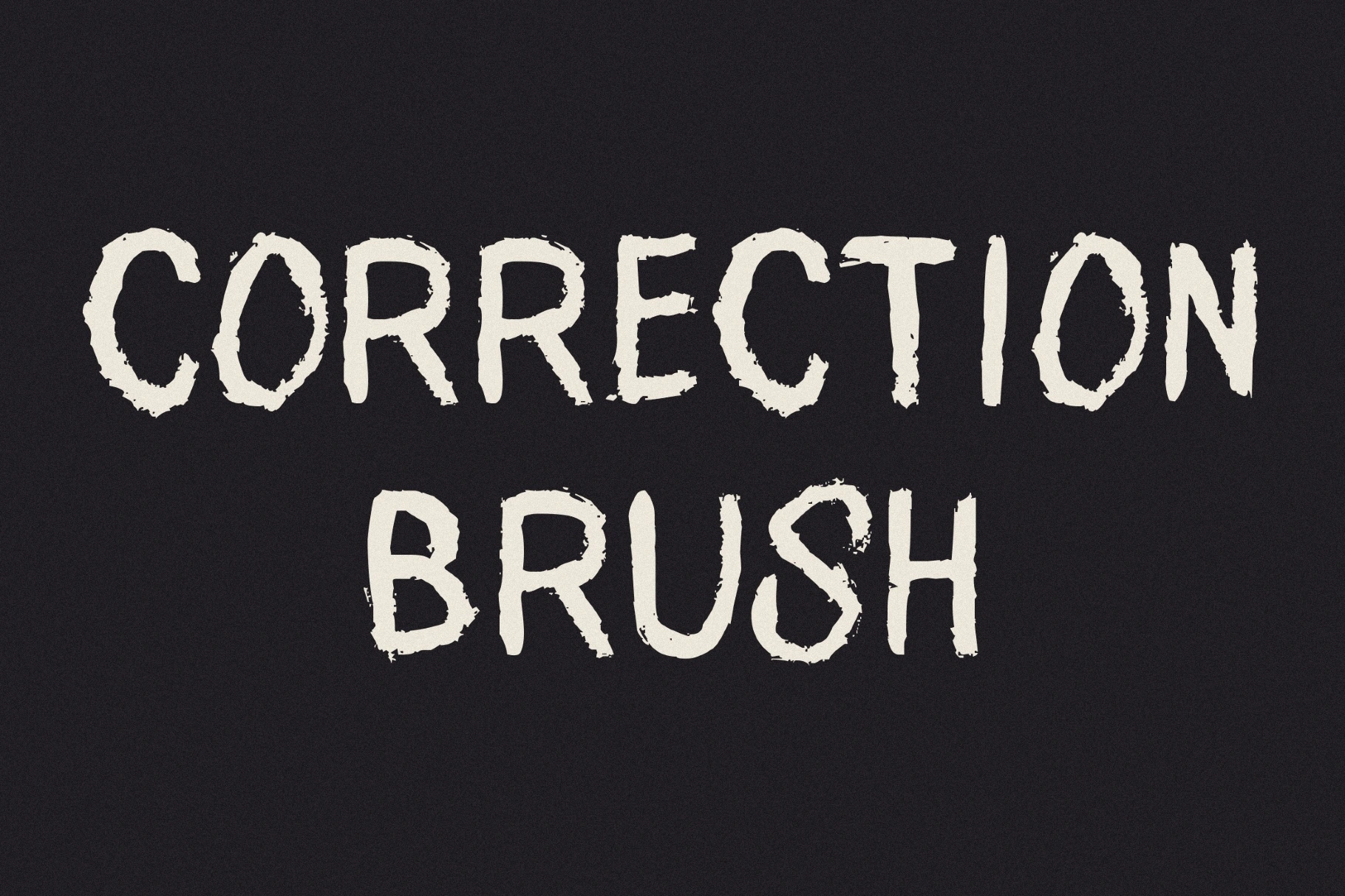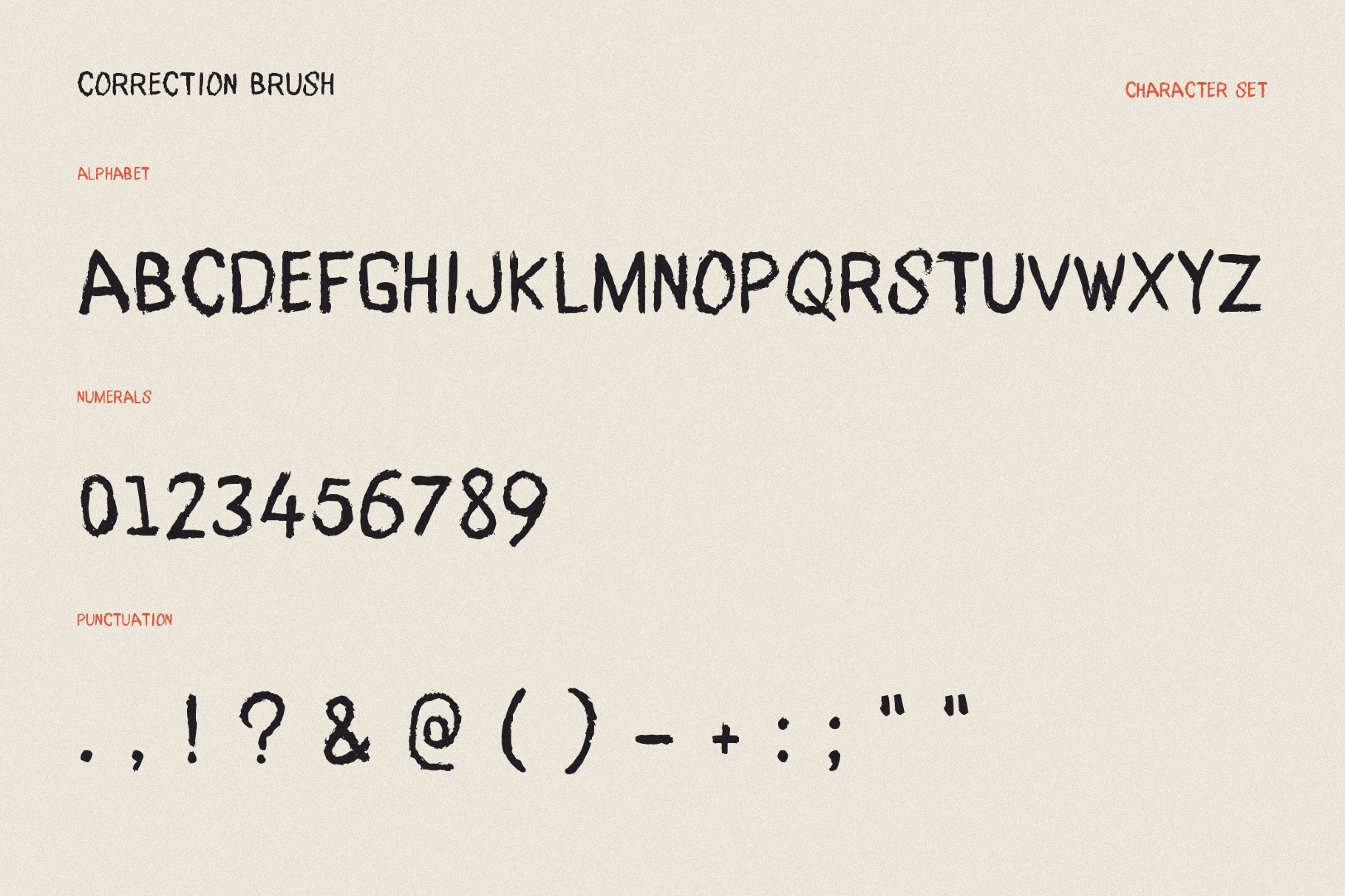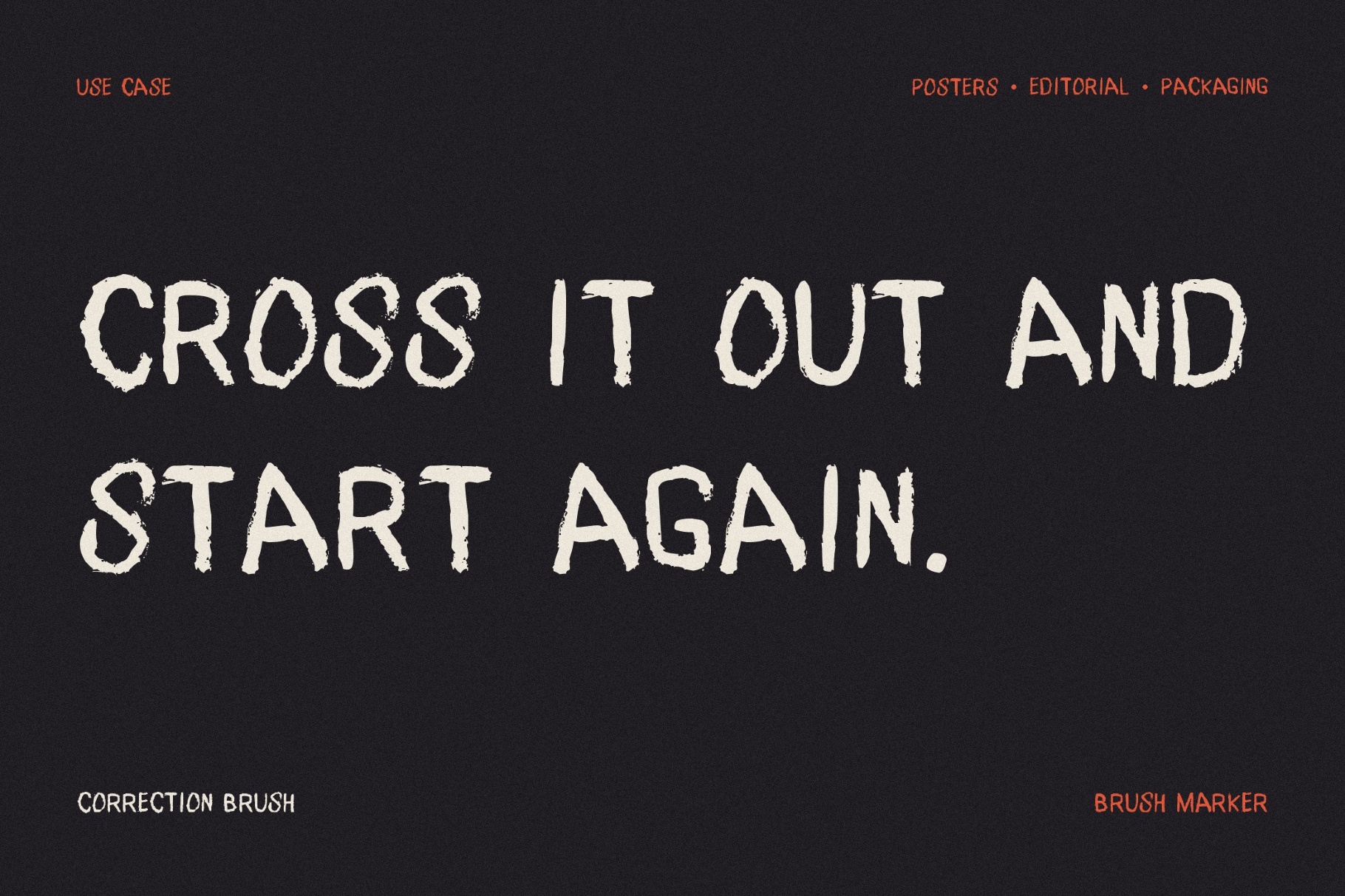
Correction Brush Font
Correction Brush is a distressed grunge font shaped by rough brush pressure, broken paint edges, and irregular uppercase forms. The letters have a little messy, a little urgent friction. and give layouts a blunt, handmade mark.
It is useful for gig posters, indie film titles, magazine covers, protest placards, streetwear prints, activist banners, apparel graphics, rough packaging, and social media quotes.
- uppercase letters;
- numbers, punctuation, dingbats, and symbols;
- multilingual support across extended Latin, Cyrillic, and Greek scripts.